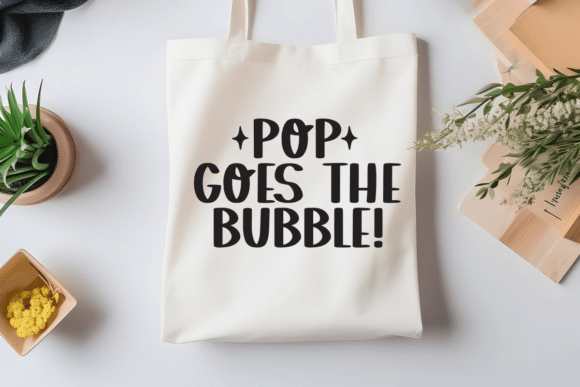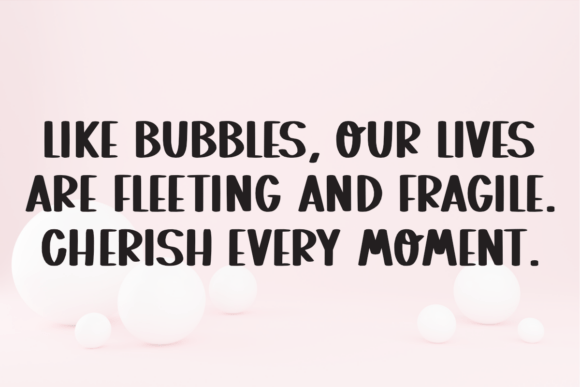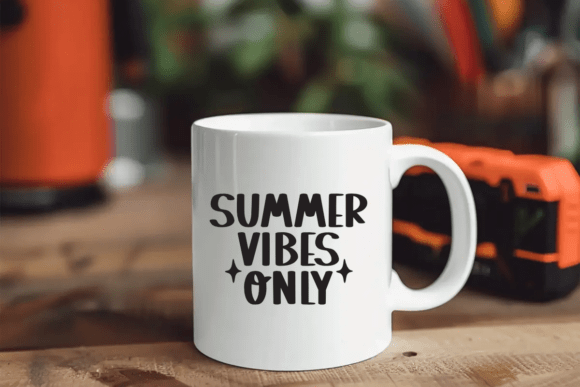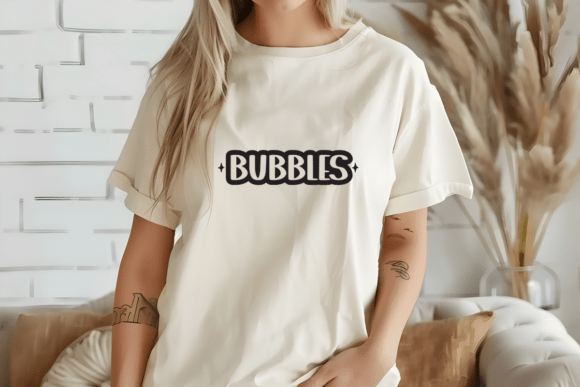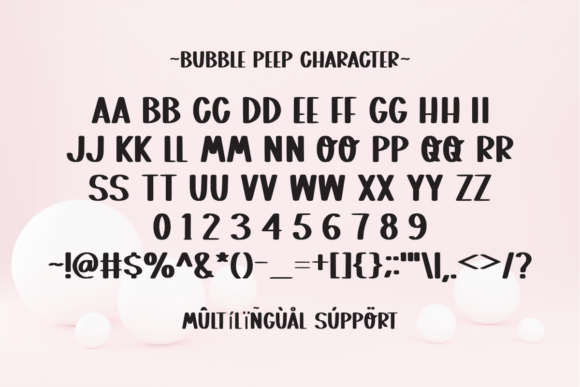
Discover the Joy of Handwritten Style with Bubble Peep Font
Have you ever sat at your desk, surrounded by colorful pens and blank paper, feeling the urge to create something truly special? For many of us, those moments of pure creativity are what drive us to pursue our passions. Whether it’s crafting a personalized gift, designing a custom sticker, or planning a special event, the possibilities are endless. And that’s where the Bubble Peep Font comes in – a playful handwritten font that’s perfect for bringing your ideas to life.
With its cute and friendly style, the Bubble Peep Font is a valuable addition to any designer’s toolkit. Whether you’re a crafter, a planner enthusiast, or a maker, this font is sure to add a personal touch to your projects. From Cricut designs to sublimation printing, the Bubble Peep Font is a versatile choice that’s sure to delight.
Bubble Peep Font Key Features
- Size: Multi-language support with 800+ glyphs, including Latin, Cyrillic, Greek, and more
- Unique Characteristics: Whimsical, hand-drawn style with rounded edges and soft curves
- Font Style: Casual, friendly, and approachable, making it perfect for children’s books, magazines, and websites
- Font Weight: Regular and bold weights available for added versatility
Bubble Peep Font Review
I recently had the chance to work with the Bubble Peep Font and I must say it’s a unique and playful addition to any design project. Here’s my honest take on this font.
- The Bubble Peep Font is incredibly versatile. It can be used for both digital and print designs, making it a great choice for a wide range of projects.
- The font’s rounded edges and bubbly style give it a friendly, approachable feel that’s perfect for children’s books, educational materials, and more.
- The font comes in a variety of weights and styles, making it easy to customize and adapt to different design needs.
- The Bubble Peep Font may not be the best choice for formal or professional projects, as it’s a bit too playful and whimsical for more serious designs.
- The font’s rounded edges can sometimes make it difficult to read at smaller font sizes.
Overall, I think the Bubble Peep Font is a fun and creative choice for designers looking to add some personality to their projects. While it may have some limitations, it’s a great option for the right type of project.
Bubble Peep Font: A Practical Application Guide
To get the most out of the Bubble Peep font, experiment with different font sizes, colors, and combinations. Use it for headings, subheadings, and body text to add visual interest to your designs.
Pair the Bubble Peep font with other playful fonts or with clean, minimalist fonts to create a unique contrast.
The Bubble Peep font is ideal for:
Creative projects, such as children’s book illustrations or party invitations.
Marketing materials, such as social media graphics or flyers.
Wedding invitations or other special occasion graphics.